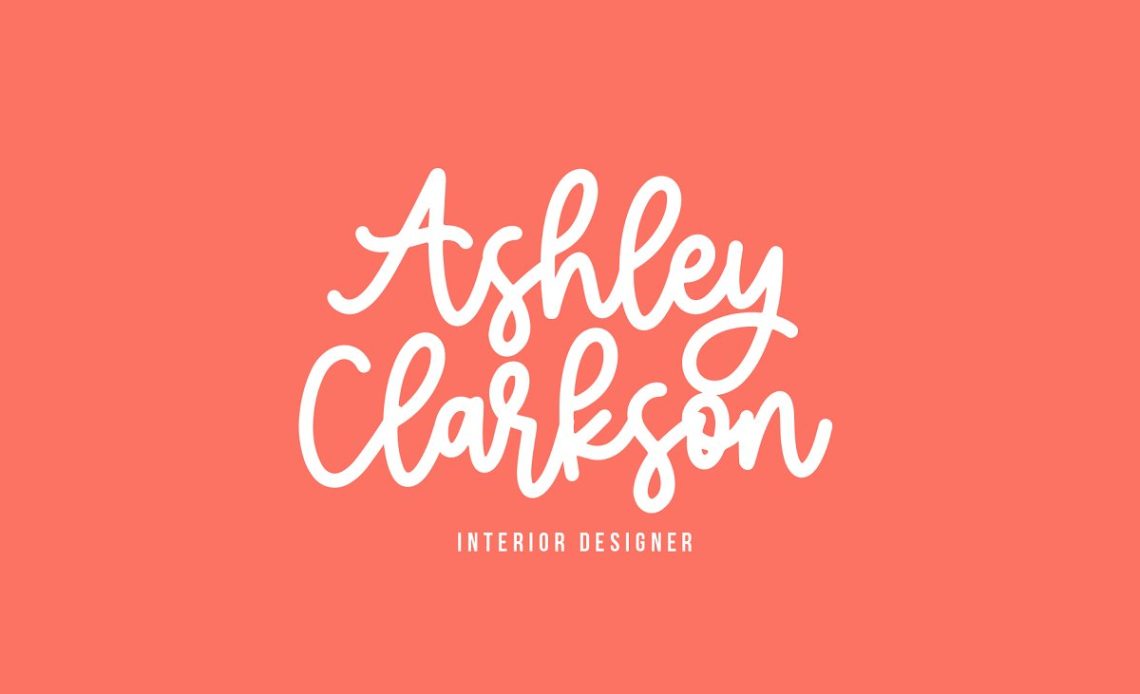
Introducing Pearberry, the ultimate handwritten script font that will add a touch of charm and elegance to all your creative endeavors! Created by the talented Kaitlynn Albani, this font is more than just a collection of letters – it's a work of art that will captivate your audience and leave a lasting impression.
Are you tired of using the same old fonts for your projects? Pearberry is here to elevate your designs and take them to new heights. Its unique and playful style will instantly catch the eye and make your text stand out from the crowd. Whether you're designing a logo, crafting the perfect quote, or creating stunning prints, Pearberry is the secret ingredient you've been missing.
But Pearberry isn't just about aesthetics – it's also incredibly versatile. With its wide range of applications, this font is suitable for any project you can imagine. From branding to social media posts, from kid's decor to clothing designs, Pearberry has got you covered. Its adaptability knows no bounds, making it the go-to choice for designers, crafters, and entrepreneurs alike.
But don't just take our word for it – let the font speak for itself. Pearberry is designed to evoke emotions and create a connection with your audience. Its handwritten feel adds a personal touch, making your message feel authentic and relatable. Whether you want to convey a sense of whimsy, elegance, or playfulness, Pearberry has the power to bring your words to life.